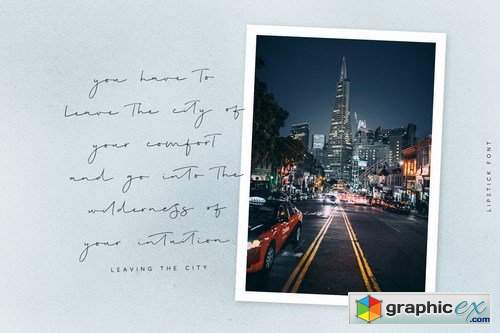
Lisptick Font
Lipstick is modern feminine font, every single letters have been carefully crafted to make your text looks beautiful. With modern script style this font will perfect for many different project ex: Instagram post, signature logo, watermark, quote, blog header, poster, wedding, branding, logo, fashion, apparel, letter, invitation, stationery, etc.